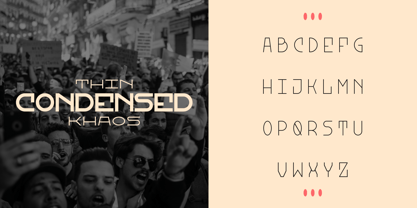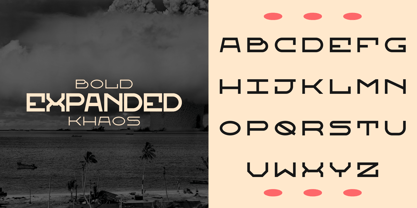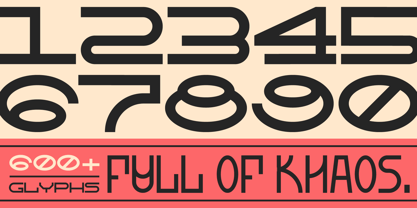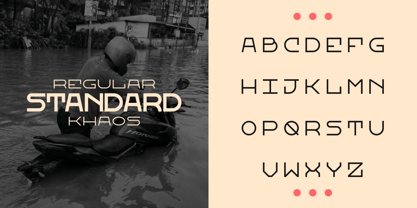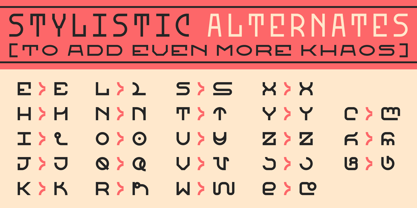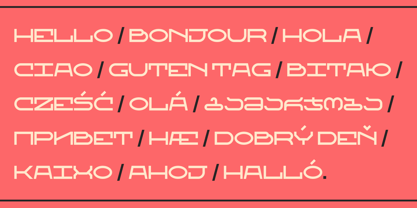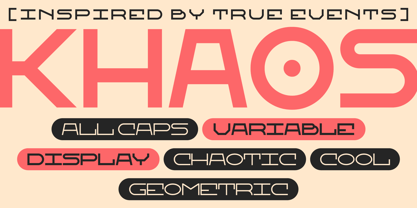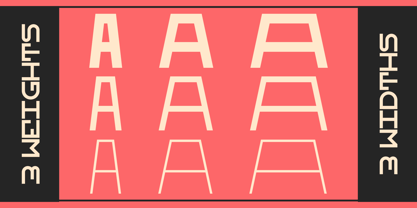
Khaos
The Khaos Font Family was designed by Germán León and published by Fontbilisi. Khaos contains 10 styles and family package options. More about this family
Khaos is a modern display typeface designed to bring bold clarity and expressive flexibility to contemporary design. Built as an all-caps variable font, it combines strong architectural structure with creative versatility, making it ideal for headlines, editorial layouts, branding, and impactful visual communication. The typeface features three carefully crafted weights and three distinct widths, allowing designers to move seamlessly from compact, sharp statements to wide, commanding compositions. Thanks to its variable font technology, these styles are not just separate presets but part of a continuous design space, giving you precise control over weight and width to fine-tune every typographic moment. Khaos balances modern precision with expressive personality. Its clean geometry and confident rhythm make it highly readable at large sizes, while its subtle details add a refined and sophisticated edge that works beautifully across digital and print environments. Designed with global communication in mind, Khaos offers extensive multilingual support. Along with a complete Latin character set with full accent coverage, the typeface also includes Cyrillic and Georgian scripts, enabling cohesive typography across diverse languages and cultures. Khaos is built for designers who want precision, flexibility, and presence in their typography; a powerful tool for creating bold visual statements while maintaining a refined, contemporary aesthetic.